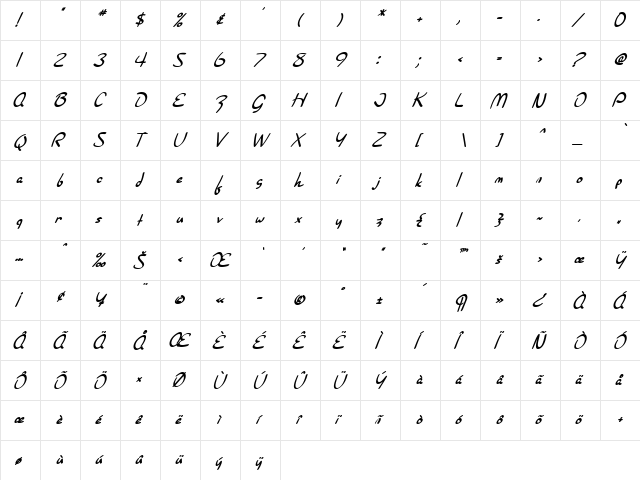
SF Burlington Script Bold Italic
Design Context for SF Burlington Script Typeface
SF Burlington Script brings a calligraphic fluidity to the page — its connecting strokes and expressive curves give it an unmistakably human quality. The heavy weight commands attention and anchors typographic hierarchies.
Font Pairing: Combine SF Burlington Script with a simple geometric sans for maximum contrast — the tension between flowing curves and clean structure is a classic typographic pairing.
Pro Tip: Pair SF Burlington Script with a clean sans-serif for supporting text. The contrast between fluid script and geometric structure creates an elegant typographic hierarchy.